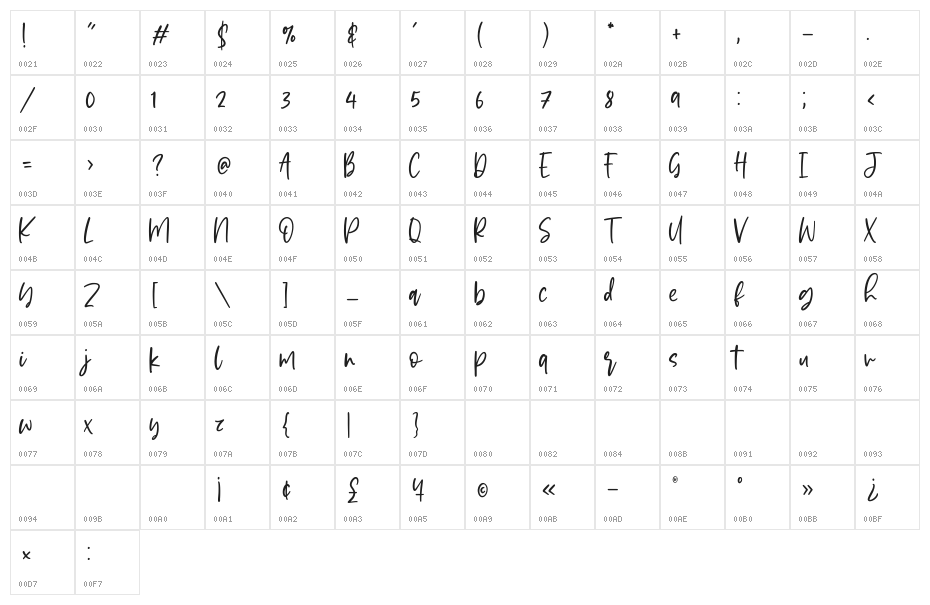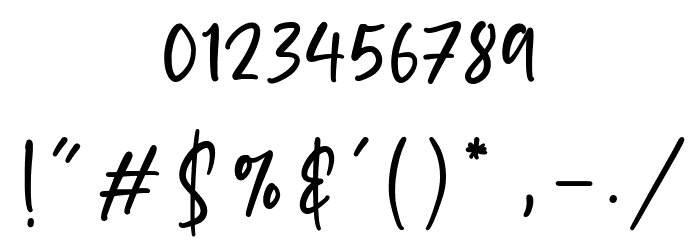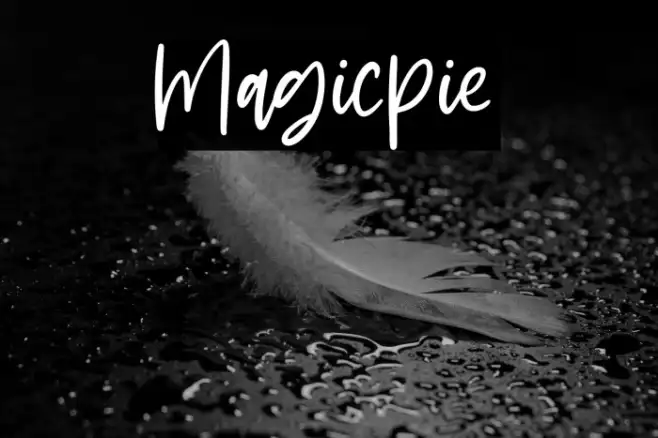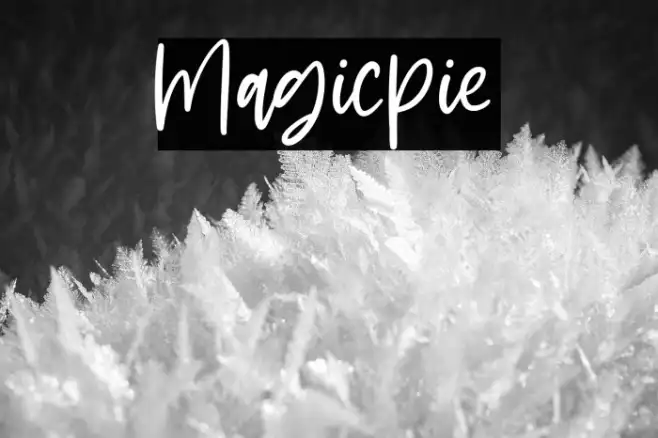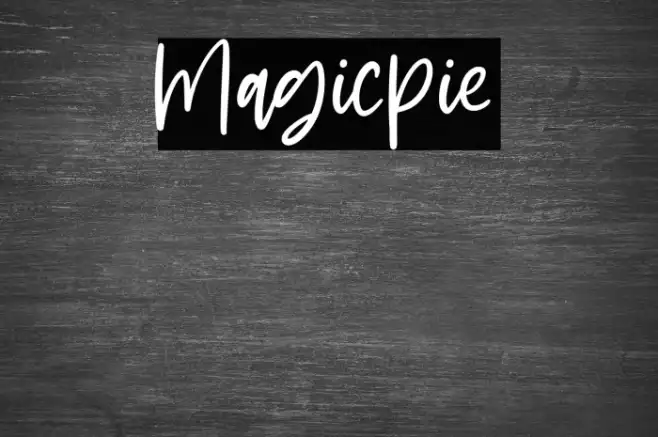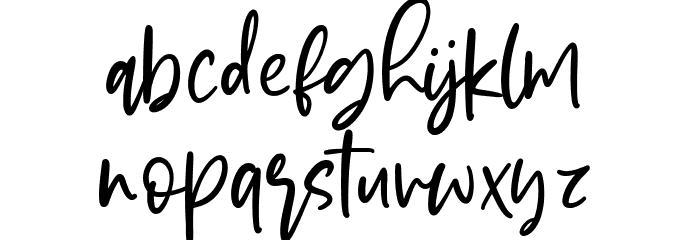
Magicpie Font
This font features a lively and playful handwritten style, characterized by its fluid and dynamic strokes. The letters have a casual, yet elegant appearance, with a slight slant that adds to its informal charm. The uppercase letters are bold and prominent, while the lowercase letters maintain a consistent flow, creating a harmonious balance. The numerals and special characters are crafted with the same attention to detail, ensuring readability and aesthetic appeal. This font is perfect for projects that require a personal touch, conveying warmth and creativity.
| Proposed Projects | Ideal for greeting cards, invitations, personal branding, and creative projects. |